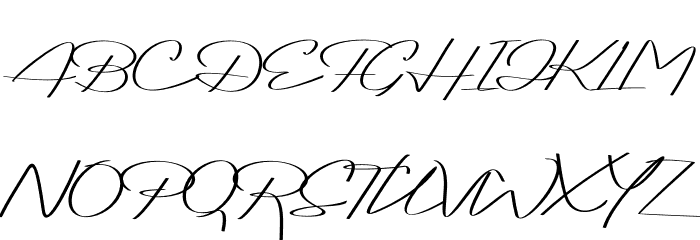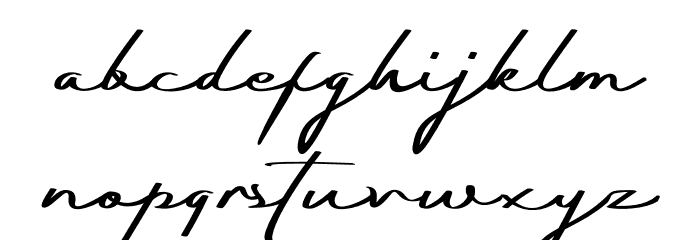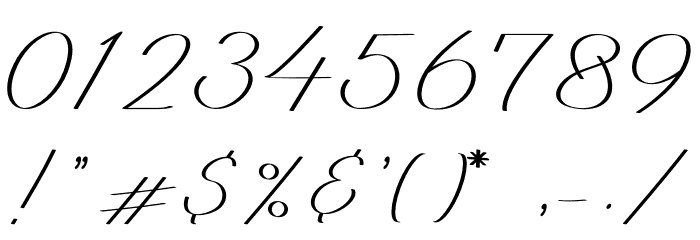
Darkfather Font
A cursive, handwritten style font with elegant, flowing lines and a modern touch.
Elegant cursive handwritten font.
- Proposed Projects: Invitations, greeting cards, personal branding.
- Category: Handwritten
- Use Case: Logos, Invitations, Personal branding